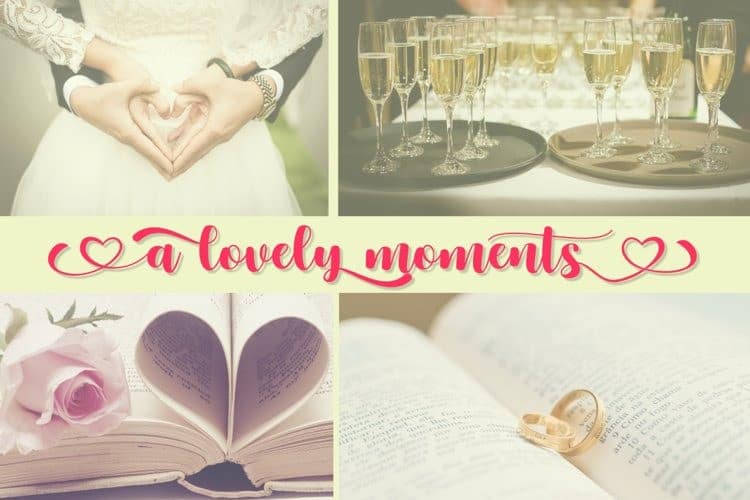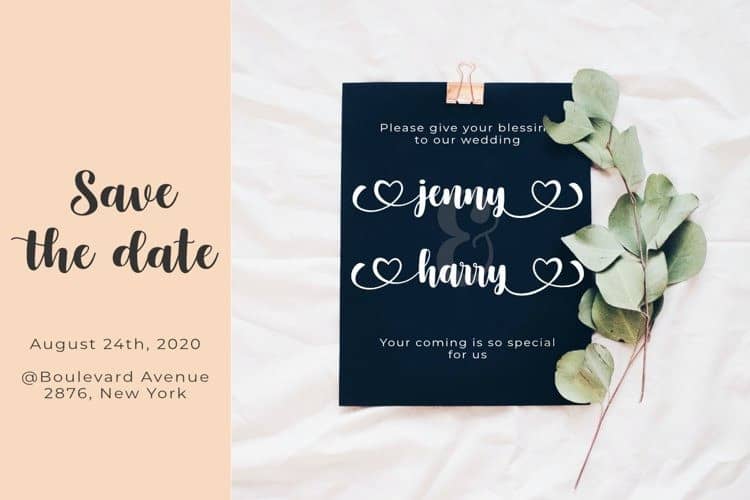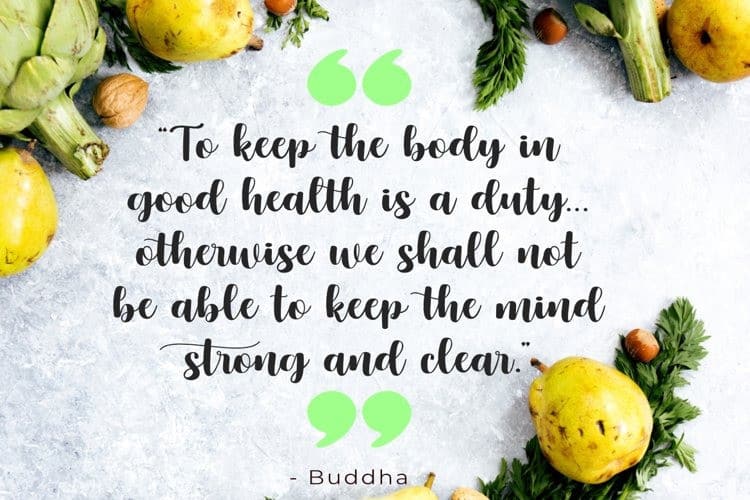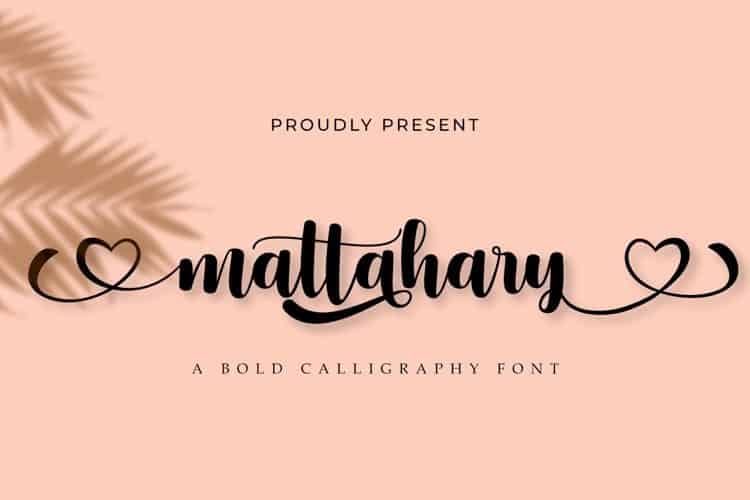
Mattahary Calligraphy Font
Mattahary Calligraphy Font is a soft, bold, elegant & fun vintage script font. Can be used for various purposes such as logos, wedding invitation, t-shirt, letterhead, signage, news, posters, badges and more. This typeface is designed and shared by Madatype Studio. It’s inspired by classic typography and brings its own unique style to any design project. This fantastic handwritten font is best suited for headlines of all sizes, as well as for blocks of text that have both maximum and minimum variations. Whether it’s for web, print, moving images or anything else – Mattahary will look spectacular.